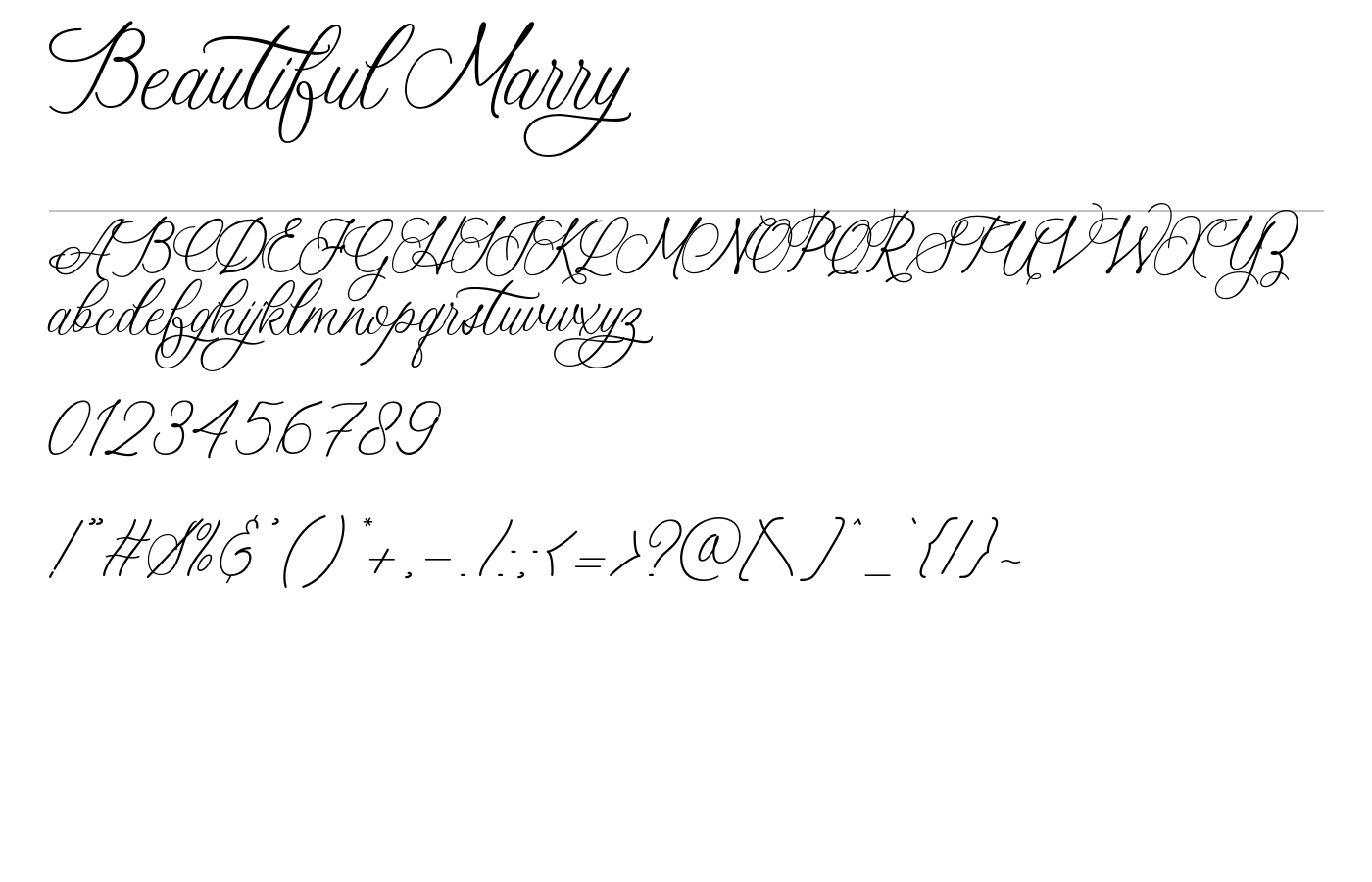
Beautiful Marry is a delicate, elegant script font characterized by its thin, flowing strokes and ornate, looping details that create a romantic and graceful feel. Its fine lines and stylish cursive forms make it perfect for wedding invitations, luxury branding, and any design wanting a touch of sophisticated charm and femininity. This font shines in headlines and decorative uses where its intricate style can truly stand out.
Beautiful Marry Font
About Beautiful Marry Font
| Font family | Beautiful Marry Font |
| Designer | Dida Ahluddin |